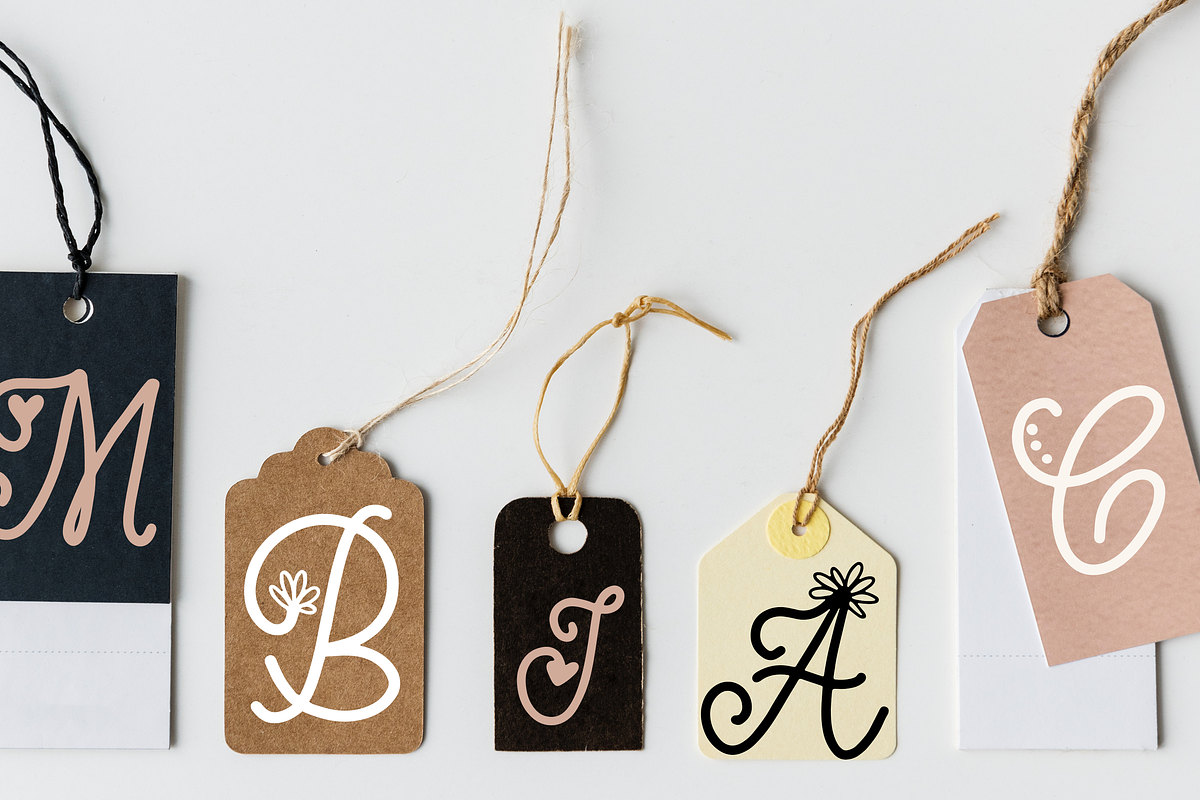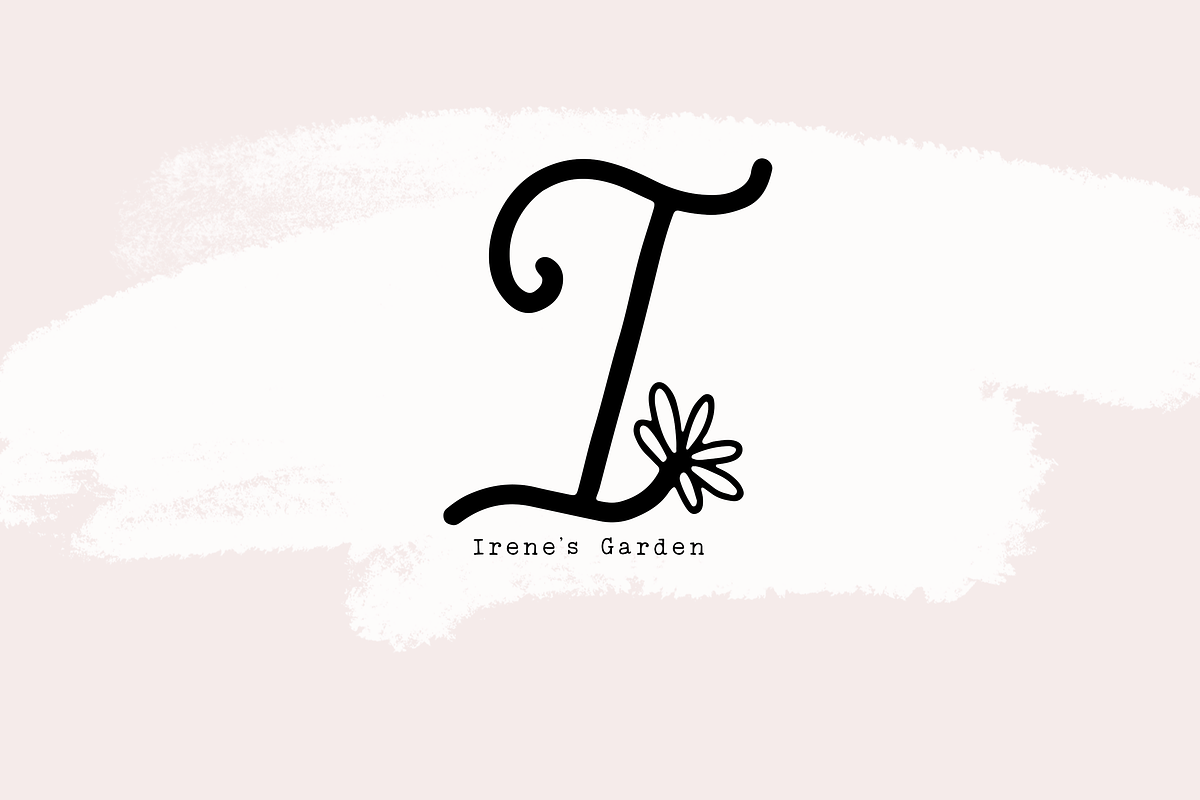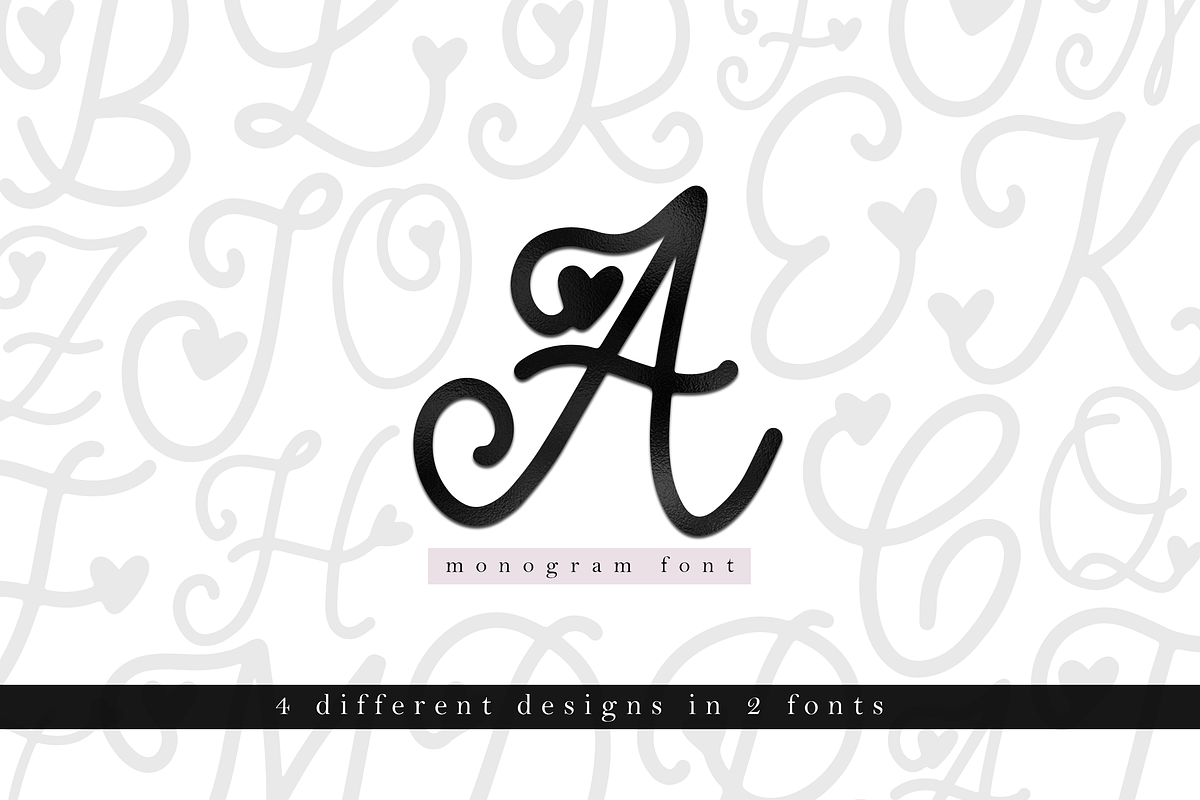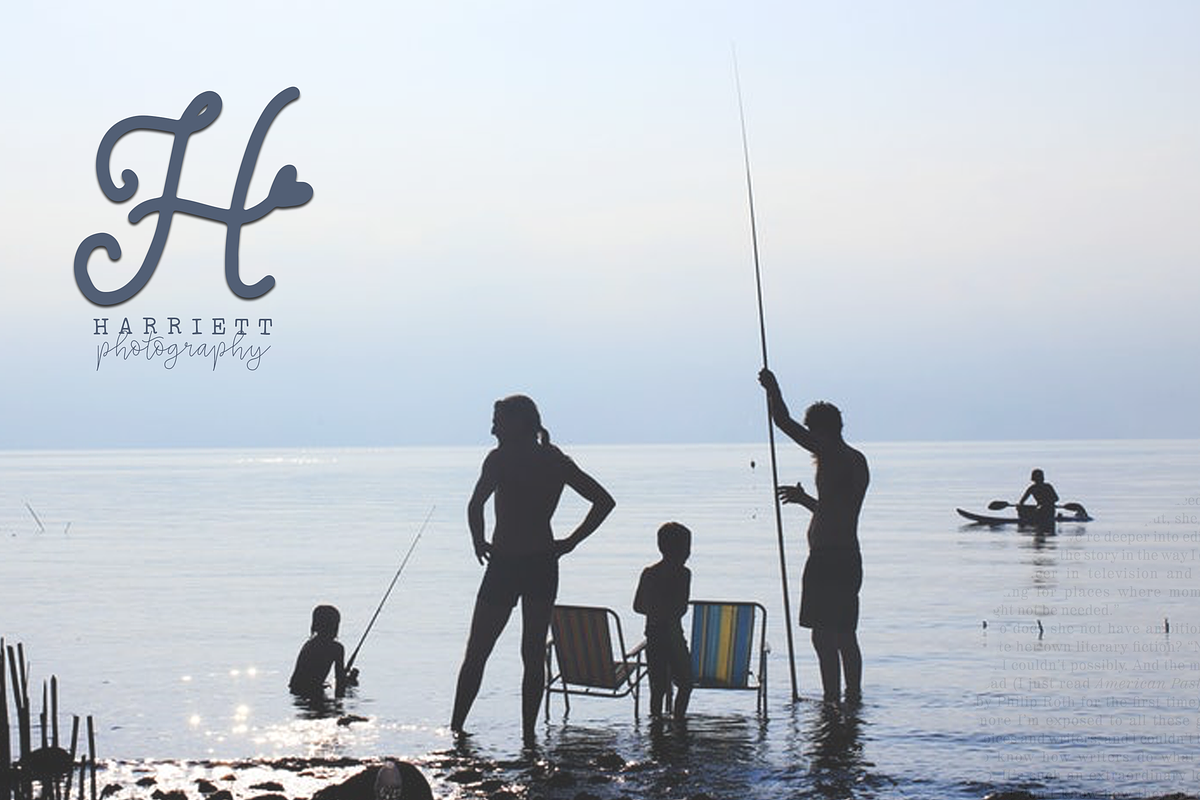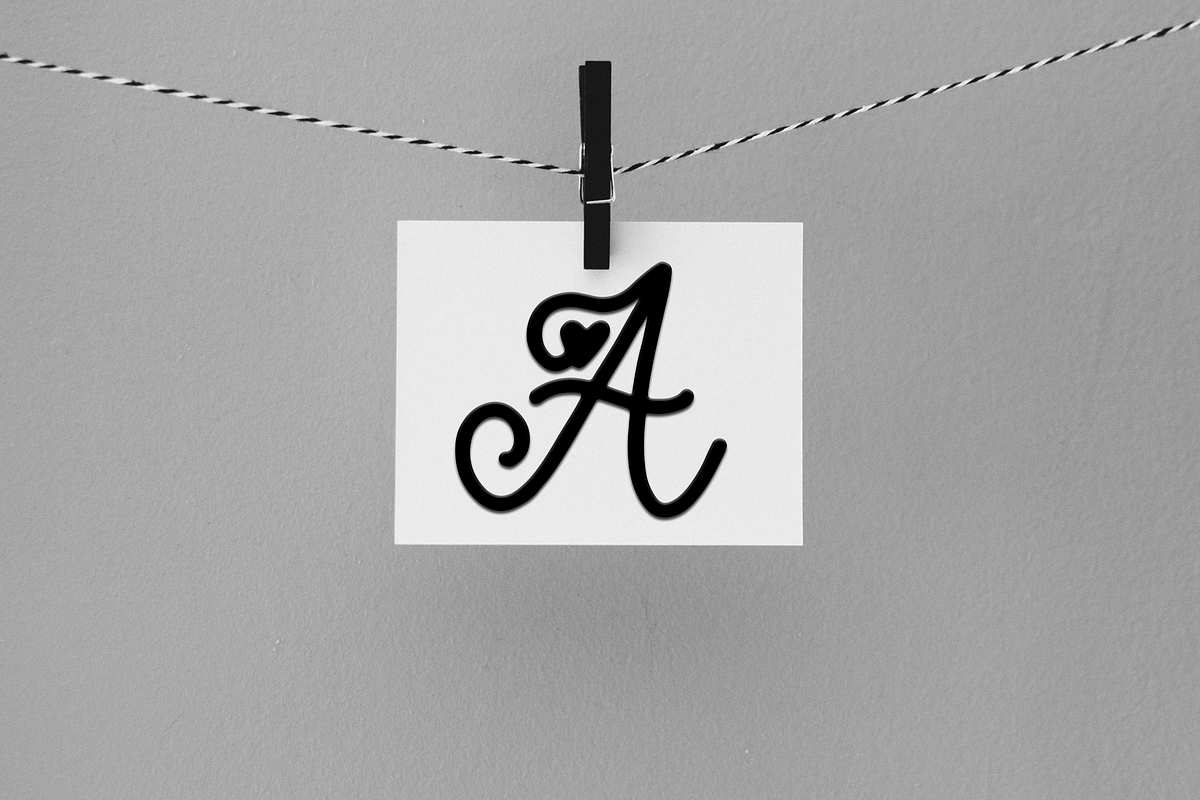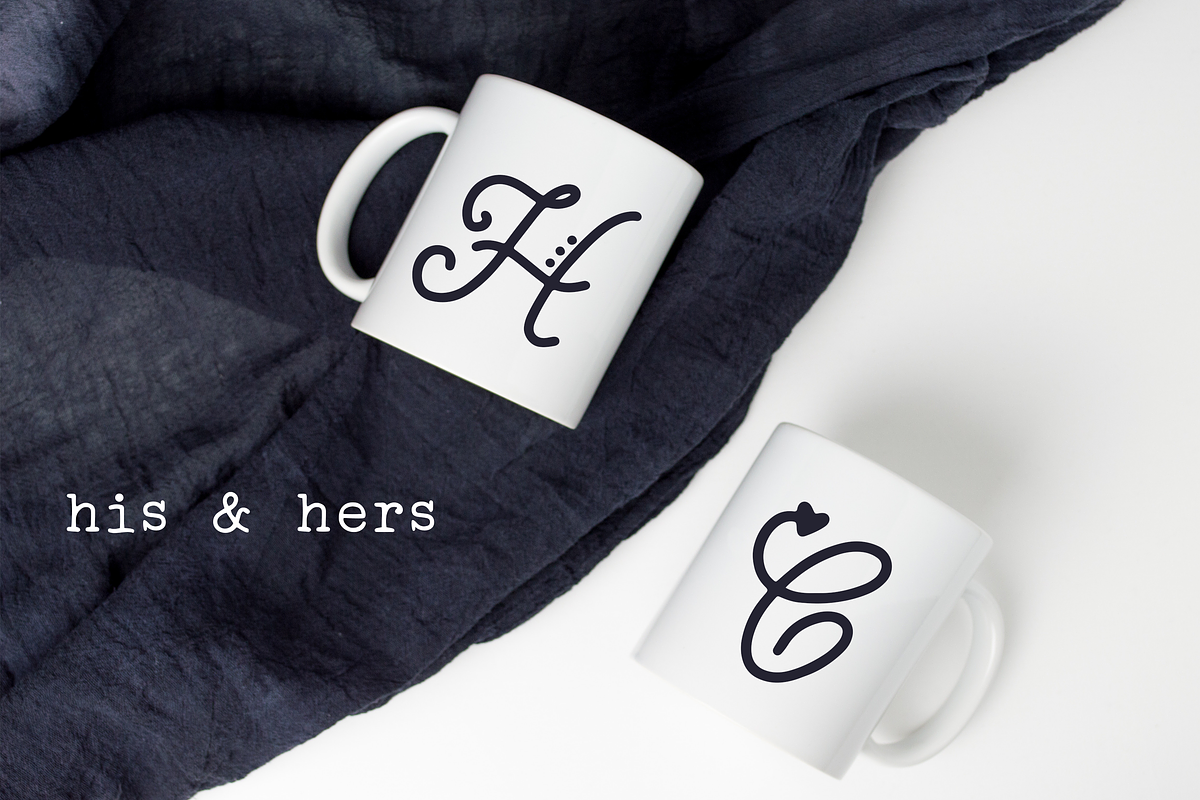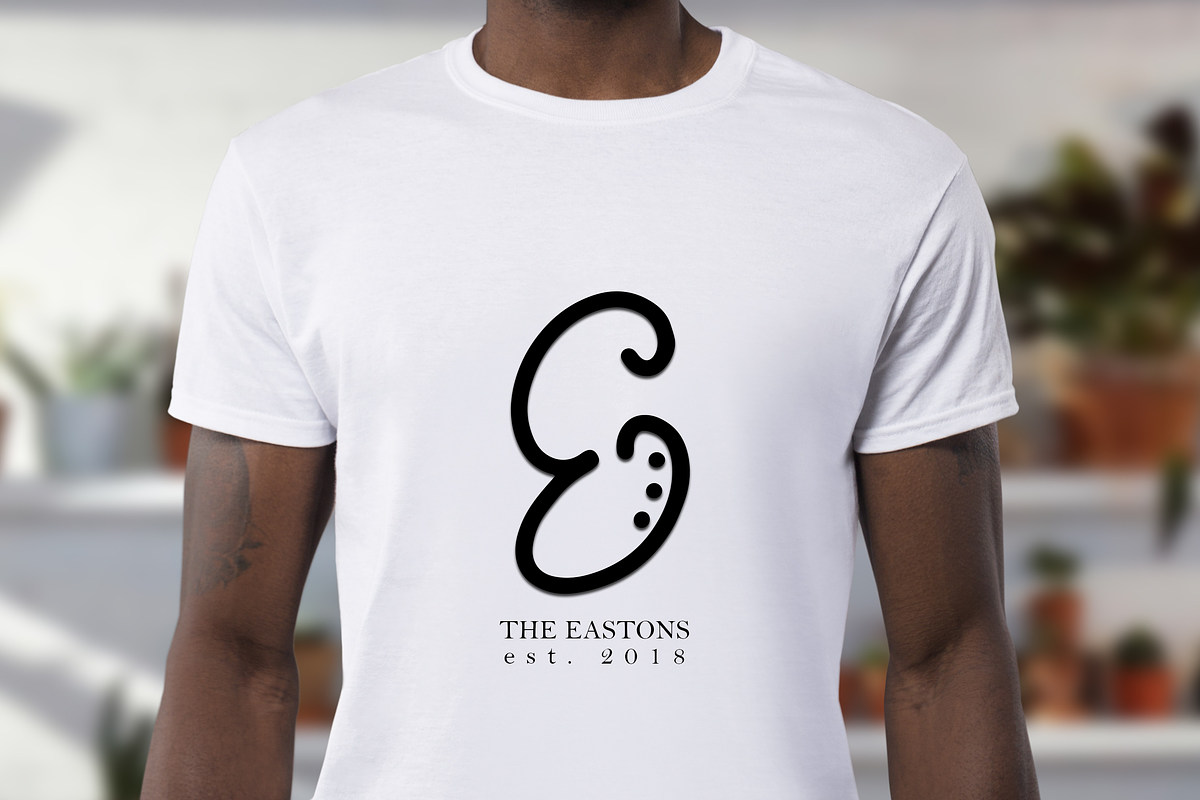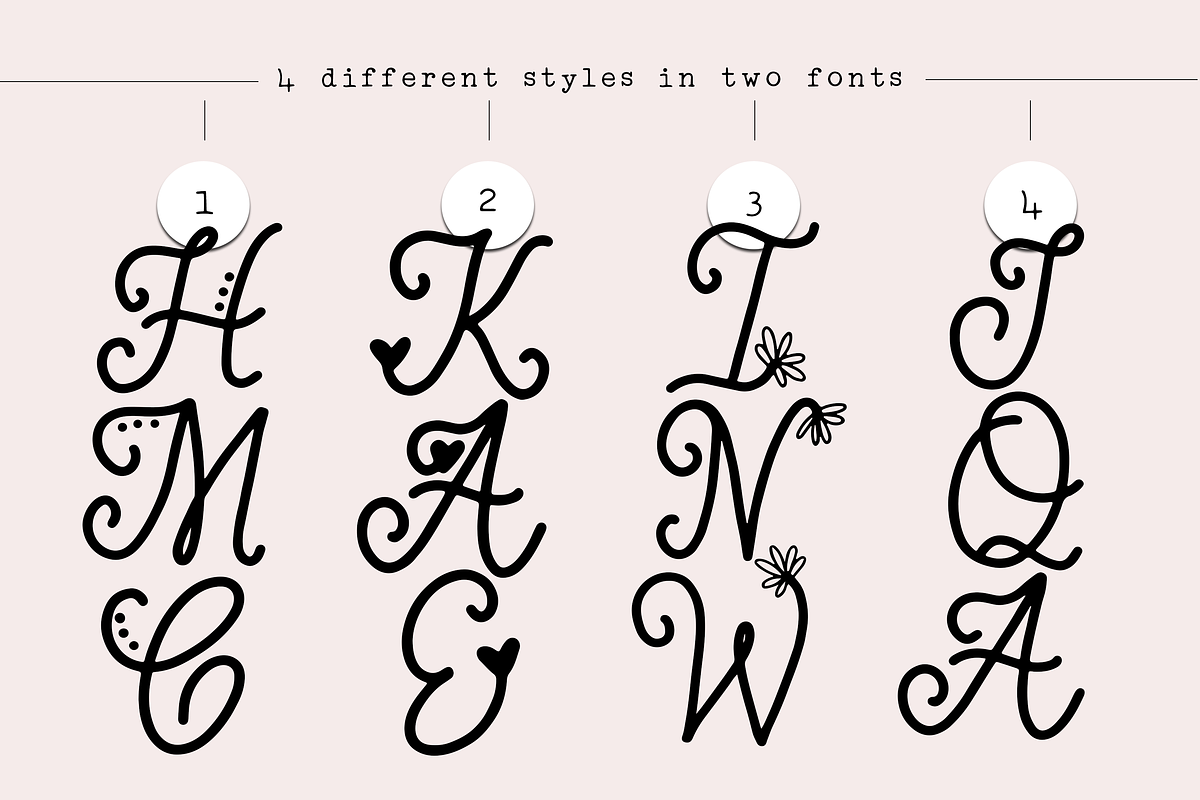
Handwritten Monogram Font - 4 Styles
For The Gram is a handwritten monogram font in four styles.
This font is perfect for cutting - tshirt design - branding - websites - home decor - & more!
Each letter was hand drawn and converted into a font for you to use. I wanted to keep the original "hand lettered" feel with each pen stroke, rather than the usual "crisp" font style.
Capital Letters: Heart Monogram
Lowercase Letters: Three dot design
Capital Letters: Flower Monogram
Lowercase Letters: Letters only [no extra design elements]